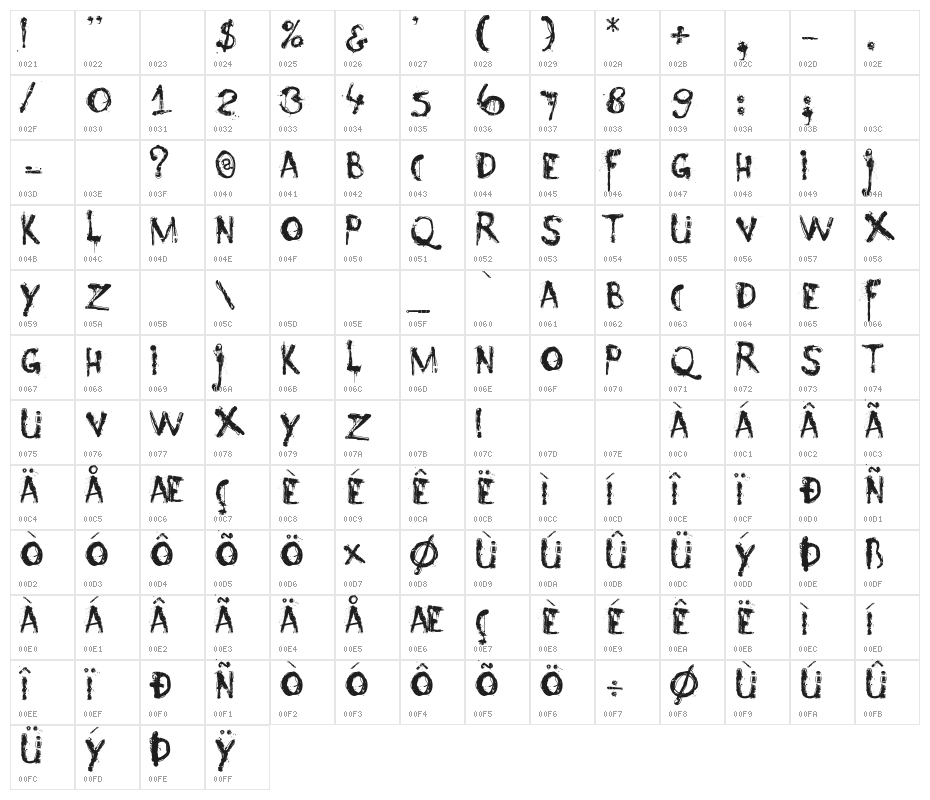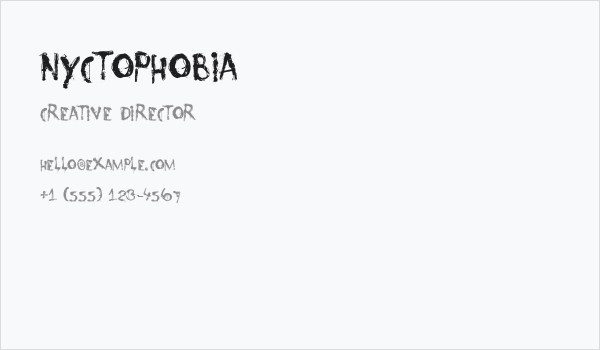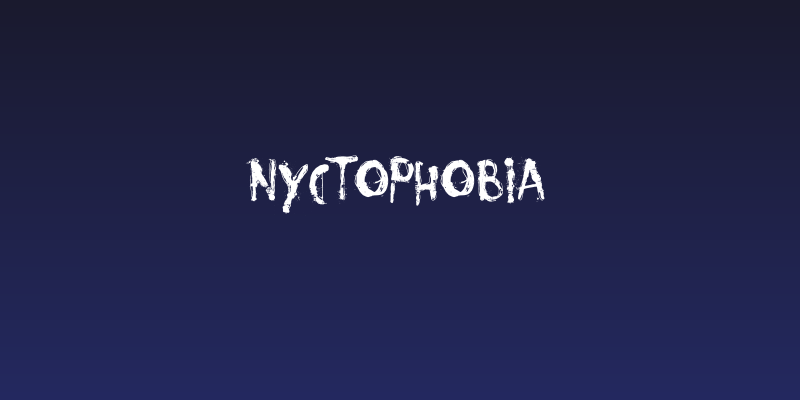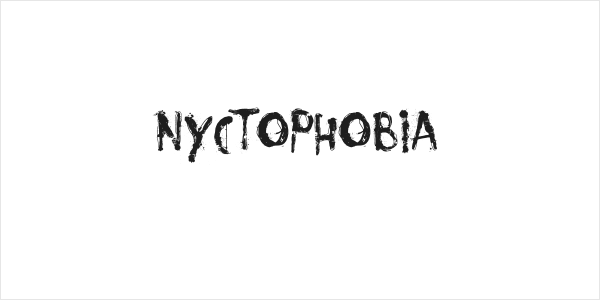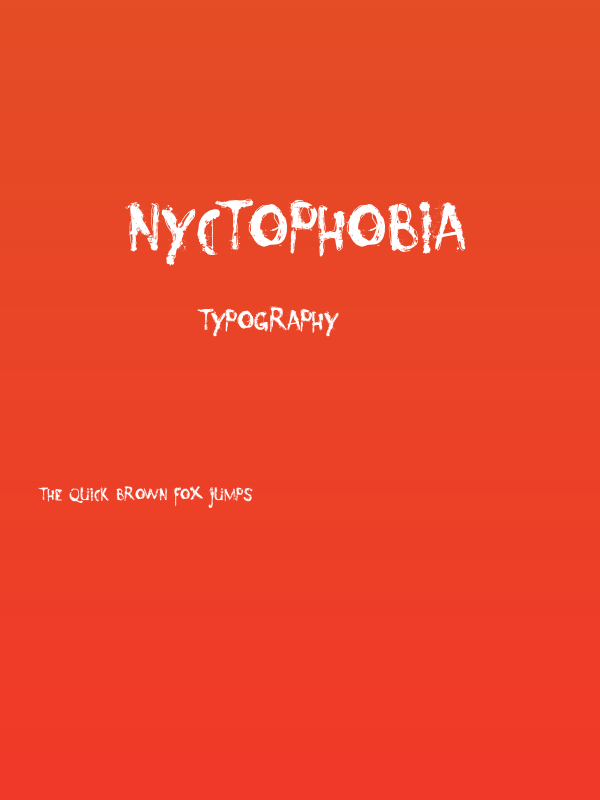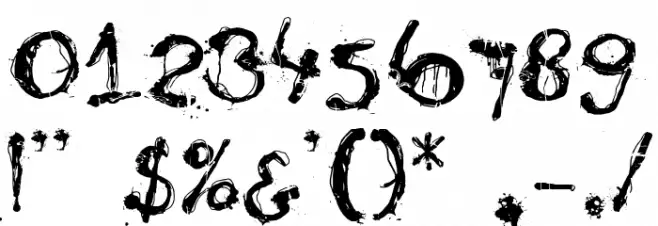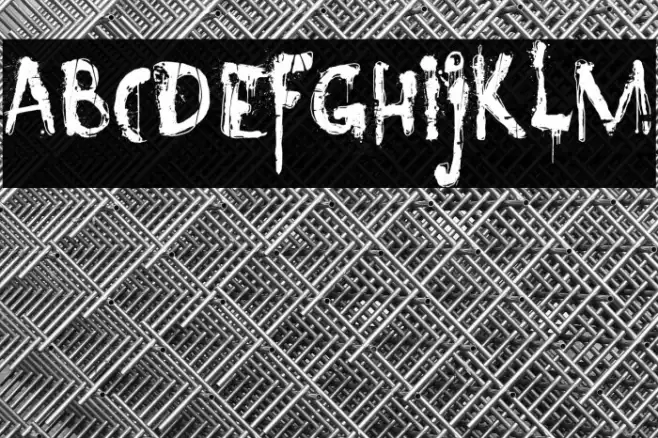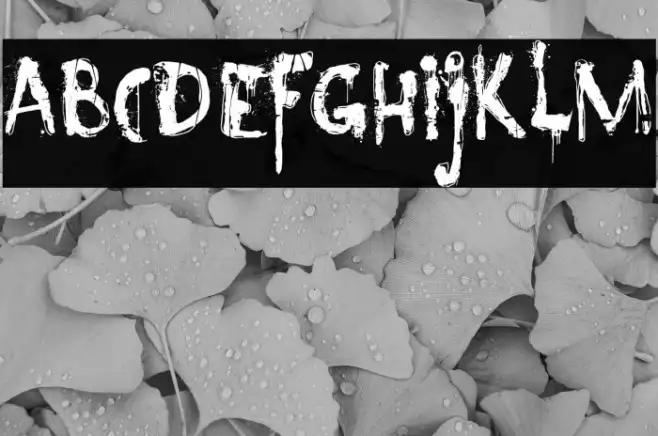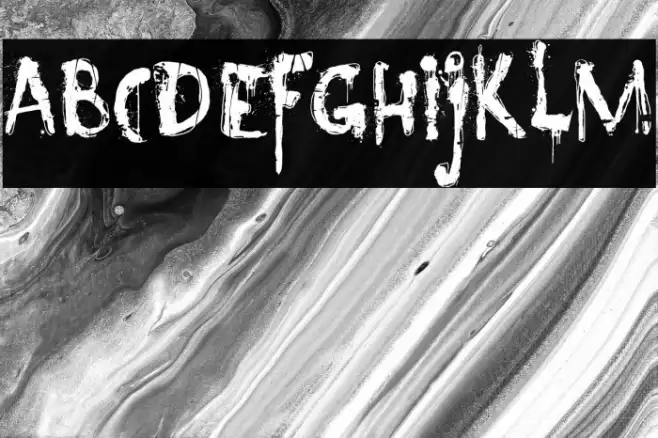
Nyctophobia Font
Nyctophobia Description
This font features a gritty, distressed style that evokes a sense of raw energy and edginess. The characters appear as if they have been painted with a brush, with uneven strokes and splatters that give it a chaotic yet artistic feel. The uppercase and lowercase letters maintain a consistent height, while the numbers and special characters follow the same rugged aesthetic. This font is perfect for projects that require a bold, rebellious look, such as album covers, posters, or any design that aims to capture attention with its unique, grunge-inspired appearance.
| Overall Style | Grunge, Artistic |
| Proposed Projects | Ideal for album covers, posters, and designs needing a bold, rebellious look. |